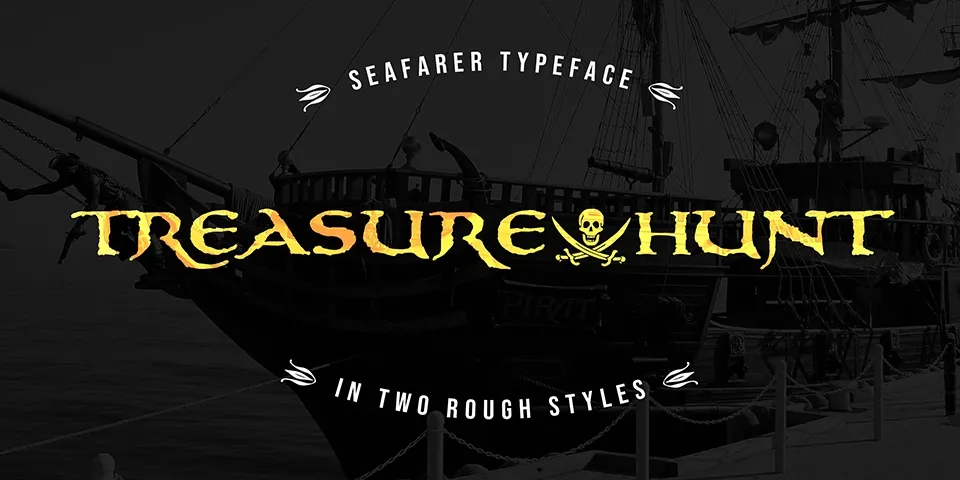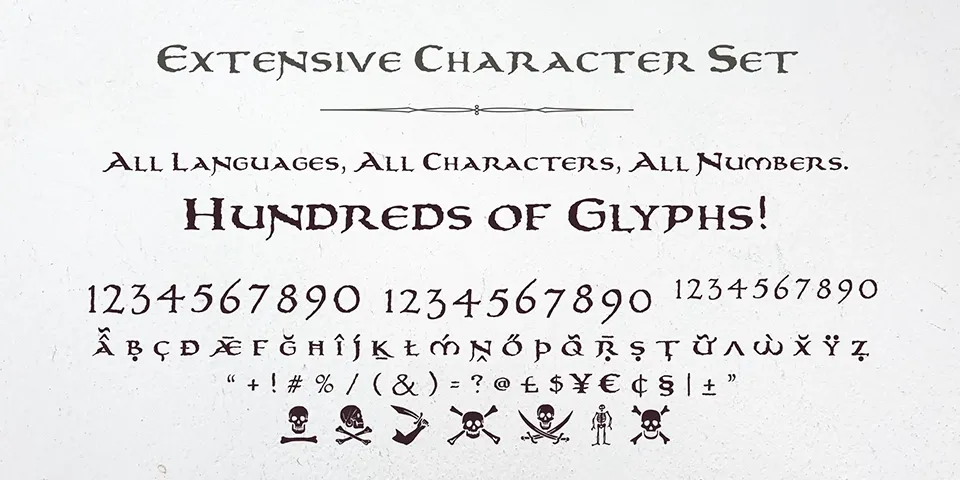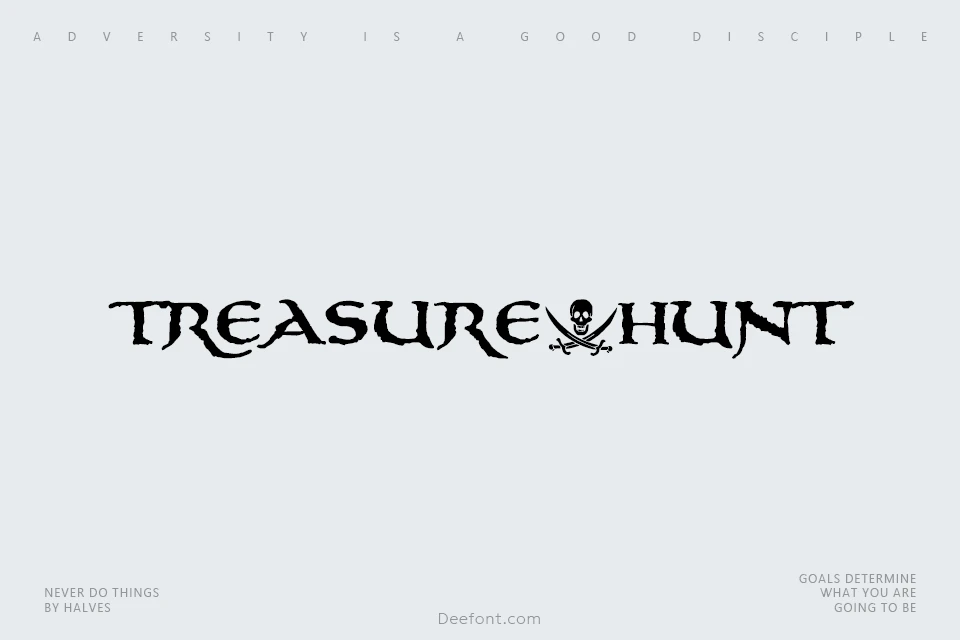
Treasurehunt Font
Treasurehunt Font is a rugged and adventurous typeface inspired by the spirit of seafaring and pirate lore. Featuring bold, textured letterforms with a handcrafted aesthetic, this font is perfect for designs that evoke mystery, exploration, and excitement. Ideal for branding, posters, game titles, or themed events, Treasurehunt Font adds a dramatic and unique touch to any project. Available in two rough styles, it captures the essence of treasure maps and maritime adventures with its dynamic and weathered appearance. Whether you’re crafting a pirate-themed design or seeking a bold statement, Treasurehunt Font delivers character and intrigue to your creative work.